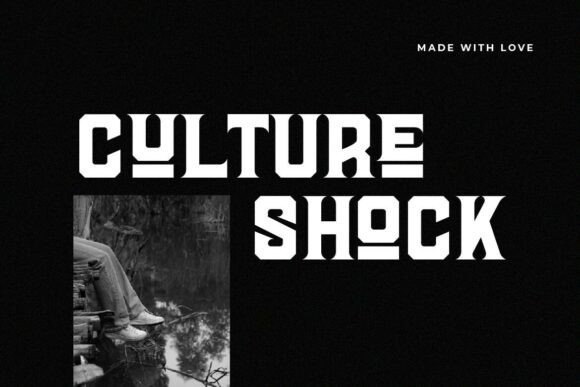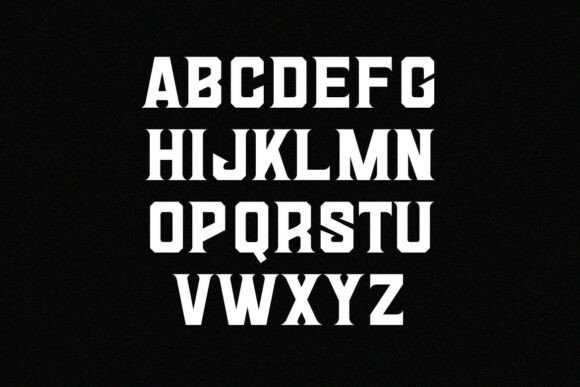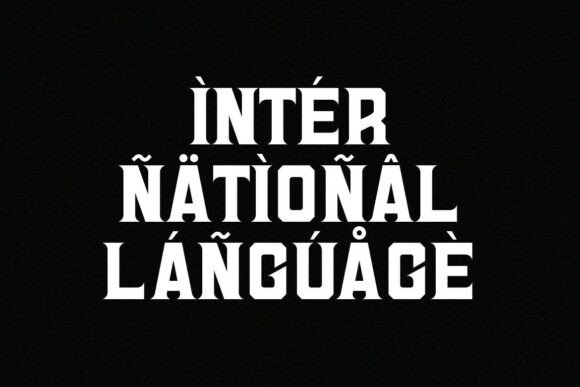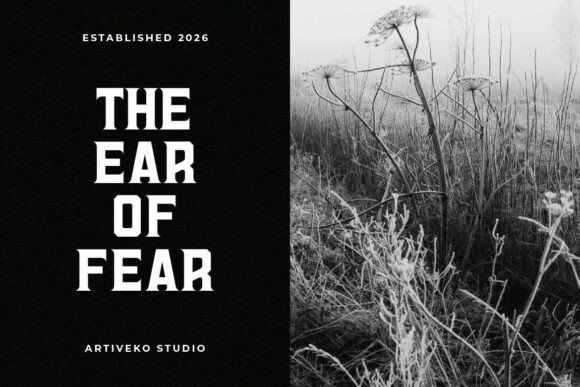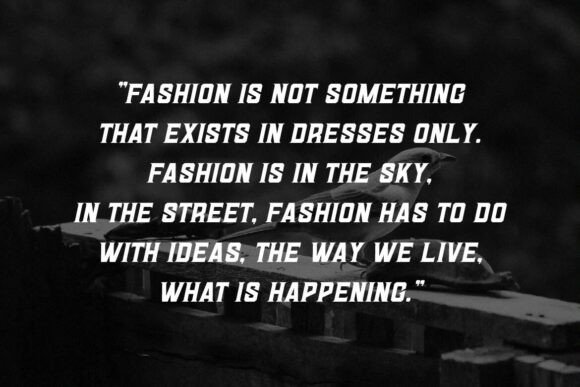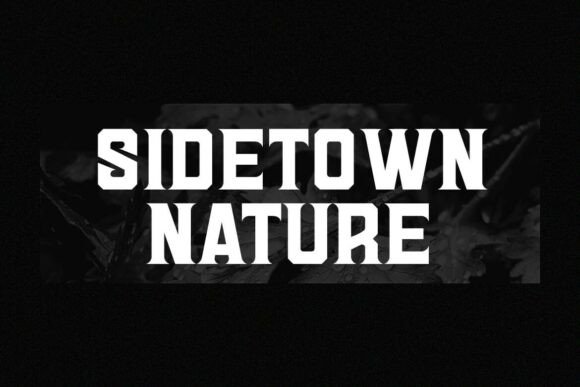
Introducing Gejola Font: A Timeless Vintage Serif for Bold Designs
Are you looking for a font that exudes classic retro charm with a bold presence? Look no further than Gejola Font, a powerful vintage serif font designed to bring a confident and nostalgic tone to your designs. With its thick strokes, strong serifs, and high contrast details, Gejola is the perfect choice for designers and crafters seeking both strength and elegance in their typography.
The Characteristics of Gejola Font
Gejola Font boasts a range of distinctive features that set it apart from other serif fonts. Its thick strokes and strong serifs evoke a sense of confidence and authority, while its high contrast details add a touch of sophistication and elegance. The font’s classic retro charm is reminiscent of traditional printing techniques, making it perfect for designs that require a nostalgic or vintage feel.
What Makes Gejola Font So Versatile?
Gejola Font is an incredibly versatile typeface that can be used in a wide range of design applications. Whether you’re creating a bold logo, a stylish poster, or a sophisticated business card, Gejola is the perfect choice. Its bold presence and classic charm make it ideal for headlines, titles, and other display text, while its elegance and sophistication ensure it remains legible and refined even at smaller sizes.
Design Applications for Gejola Font
So, what can you create with Gejola Font? The possibilities are endless! Here are a few ideas to get you started:
- Logos and branding: Use Gejola to create a bold and memorable logo that exudes confidence and sophistication.
- Posters and flyers: Add a touch of classic retro charm to your posters and flyers with Gejola’s distinctive serif style.
- Business cards: Make a lasting impression with Gejola’s elegant and refined typography.
- Packaging design: Use Gejola to add a touch of sophistication and elegance to your product packaging.
- Digital marketing materials: Bring a sense of nostalgia and classic charm to your digital marketing materials, such as social media graphics and email campaigns.
Tips for Using Gejola Font Effectively
To get the most out of Gejola Font, here are a few tips to keep in mind:
- Use it boldly: Gejola Font is designed to make a statement, so don’t be afraid to use it in bold and eye-catching ways.
- Experiment with colors: Gejola Font looks great in a range of colors, so don’t be afraid to experiment and find the perfect hue for your design.
- Pair it with contrasting fonts: Gejola Font pairs perfectly with contrasting fonts, such as sans-serif fonts or script fonts.
- Pay attention to legibility: While Gejola Font is elegant and refined, it’s still essential to ensure it’s legible, particularly at smaller sizes.
In conclusion, Gejola Font is a powerful vintage serif font that brings a confident and nostalgic tone to any design. With its thick strokes, strong serifs, and high contrast details, Gejola is the perfect choice for designers and crafters seeking both strength and elegance in their typography. Whether you’re creating a bold logo, a stylish poster, or a sophisticated business card, Gejola Font is sure to make a lasting impression.